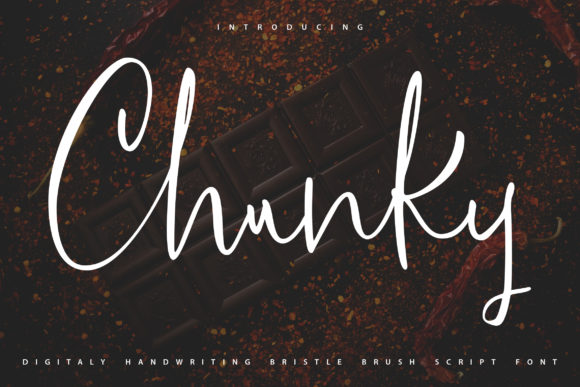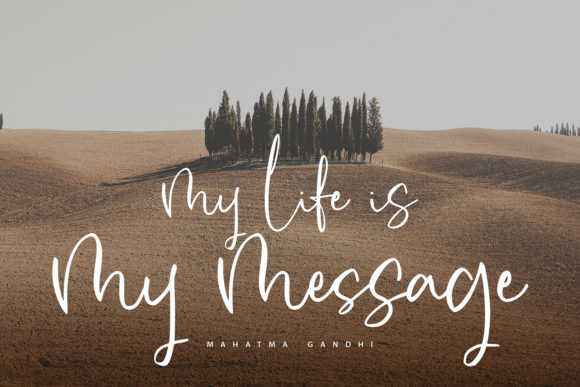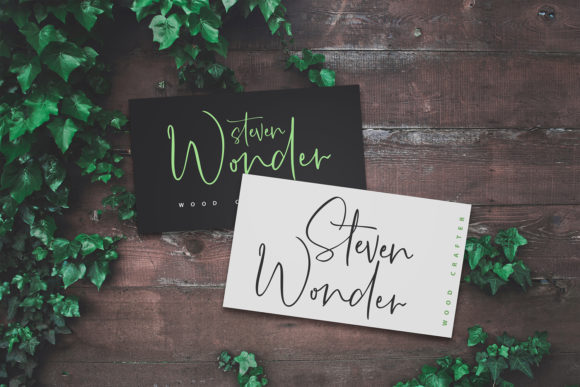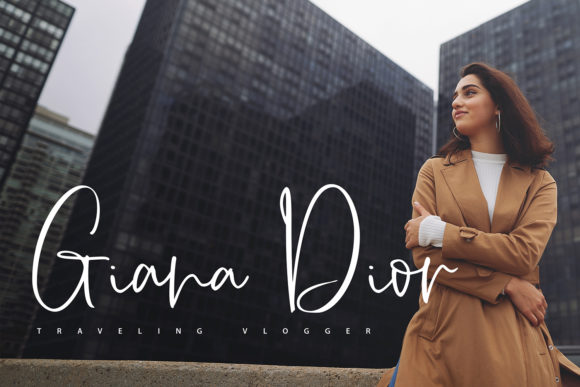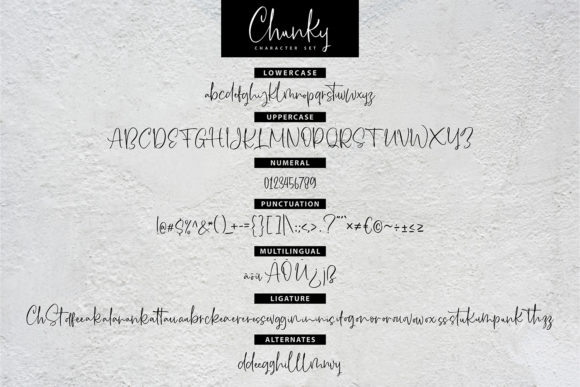
About Chunky Font
Chunky is a ravishing cursive script font that brings a graceful touch to your creative ideas. With its elegant and flowing style, Chunky adds a touch of sophistication and beauty to any design.
The font’s cursive letterforms are carefully crafted to create a harmonious and fluid appearance. Each character flows seamlessly into the next, creating a sense of rhythm and elegance. Whether you’re working on invitations, branding materials, quotes, or any other design project, Chunky’s graceful curves and smooth lines will enhance your creations.
One of the great features of Chunky is its PUA encoding, which allows you to easily access all of the glyphs and swashes available in the font. This gives you the freedom to customize your designs and add decorative elements, ligatures, and alternate characters with ease. By exploring the various options, you can create unique and eye-catching designs that stand out.
Chunky’s versatility allows it to be used in a wide range of design contexts. Whether you’re going for a romantic and feminine look, a vintage or retro style, or a modern and minimalist design, Chunky adapts to your vision. It can be used in various projects such as wedding invitations, logos, packaging, signage, and more.
By incorporating Chunky into your creative ideas, you can make a lasting impact on your audience. The font’s graceful touch and cursive style add a touch of elegance and sophistication, making your designs stand out and leaving a memorable impression.
In summary, Chunky is a ravishing and cursive script font that brings a graceful touch to your creative ideas. With its PUA encoding, you have easy access to a wide range of glyphs and swashes, allowing for customization and creativity. Whether you’re designing for personal or professional purposes, Chunky will enhance your designs and leave an unforgettable impact on your audience.